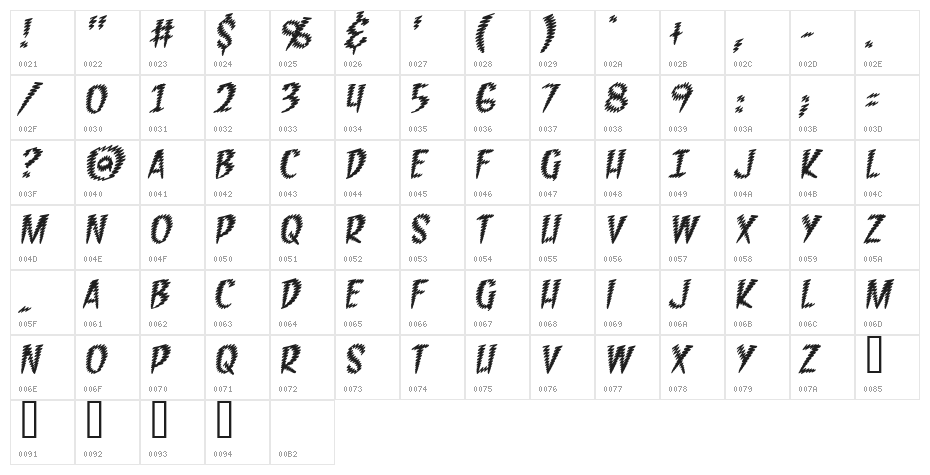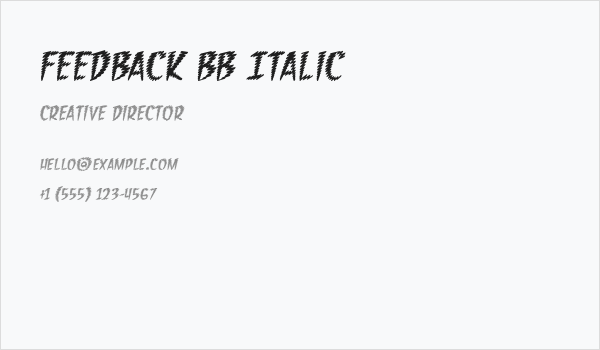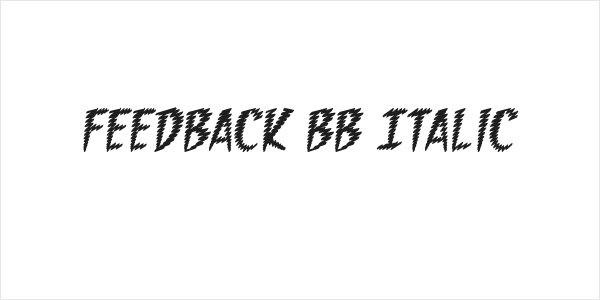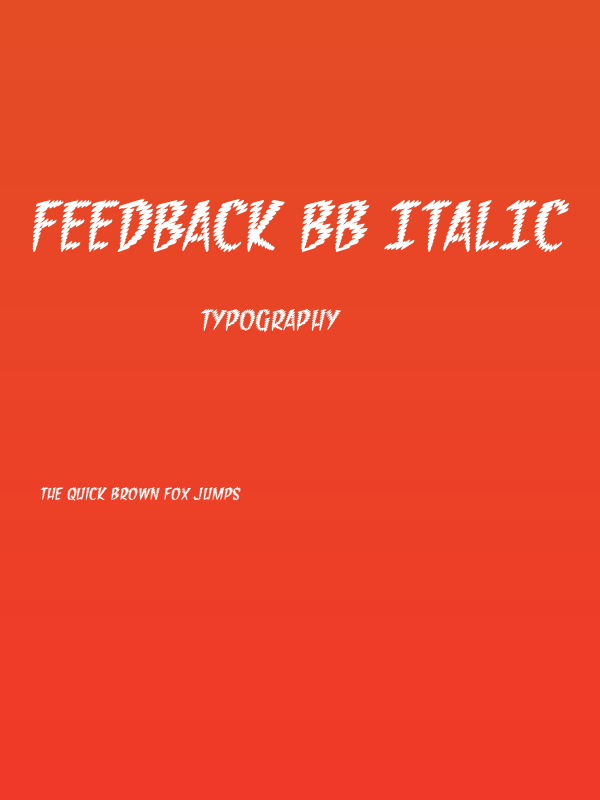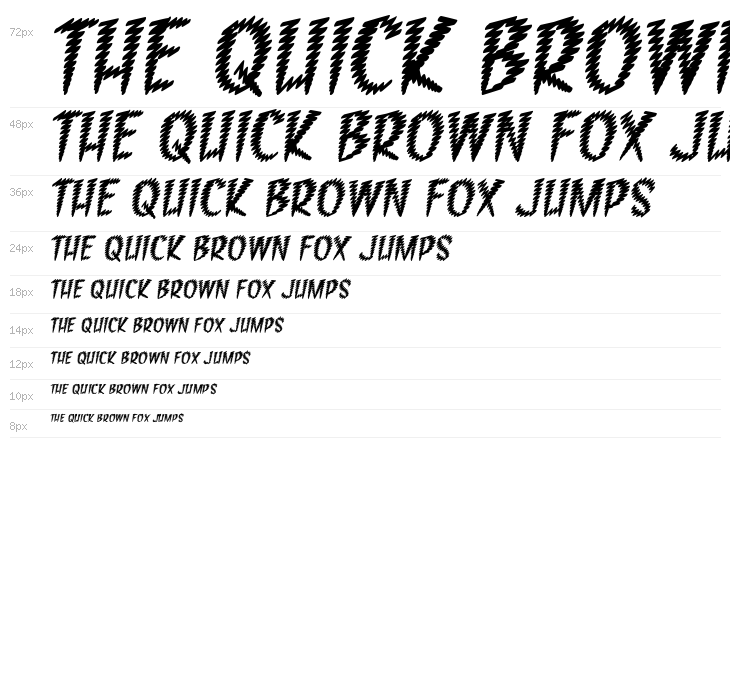
Feedback BB Italic Font
Feedback BB Italic Description
This font features a dynamic and energetic style, characterized by its bold, italicized form and a unique zigzag pattern that runs through each character. The letters are sharply angled, giving a sense of movement and urgency. The uppercase and lowercase letters maintain a consistent design, with the zigzag pattern adding a textured appearance. Numbers and special characters follow the same stylistic approach, ensuring uniformity across all glyphs. This font's distinctive look makes it stand out, ideal for projects that require a bold statement.
| Proposed Projects | Perfect for eye-catching headlines, posters, branding materials, and any design needing a bold, dynamic touch. |